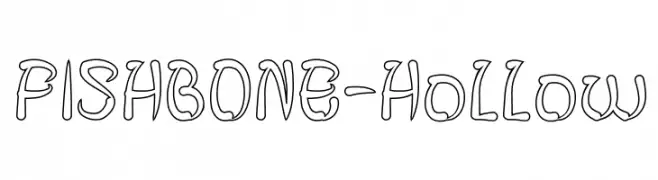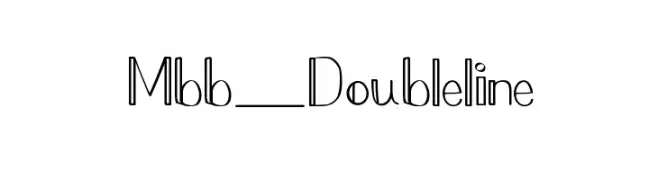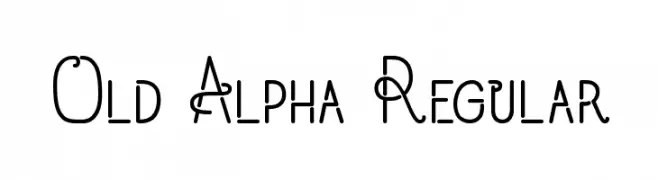
( Krithika M.J. )
A modern, double-line font with a playful and artistic style.
( Michel Comte - www.creer-mon-bijou.fr )
A bold, artistic font with high contrast and calligraphic flair.
( dcoxy - Greg Medina - www.dcoxy.com/ )
A playful, decorative font with a stitched pattern and casual, handwritten style.
( imagex - www.imagex-fonts.com )
A bold, hand-drawn font with a playful, textured design.
( madeDeduk )
A modern, decorative font with geometric and artistic elements.
( weknow - Wino S Kadir - www.creativefabrica.com/designer/weknow/ )
A bold, italicized font with a modern, playful design inspired by bamboo shapes.
( weknow - Wino S Kadir - www.creativefabrica.com/designer/weknow/ )
A playful, bold font with rounded, flowing shapes and a whimsical style.
( weknow - Wino S Kadir - www.creativefabrica.com/designer/weknow/ )
A whimsical, hollow font with a playful, hand-drawn style.
( weknow - Wino S Kadir - www.creativefabrica.com/designer/weknow/ )
A playful, rounded font with a tubular design and consistent stroke width.
( Blue Jay Font Studio - katzfonts.50megs.com/bj1.html )
A whimsical, decorative font with characters embedded in cartoon illustrations.